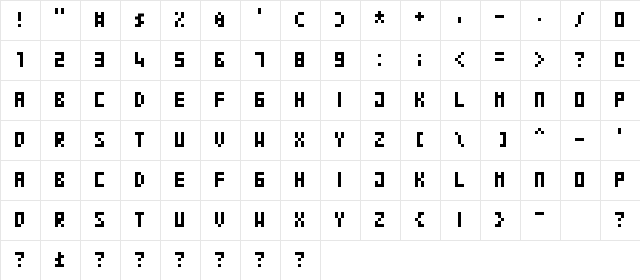
Blocko Medium
Design Context for Blocko Typeface
Blocko is a composed and adaptable typeface that performs quietly and consistently across a wide range of design contexts.